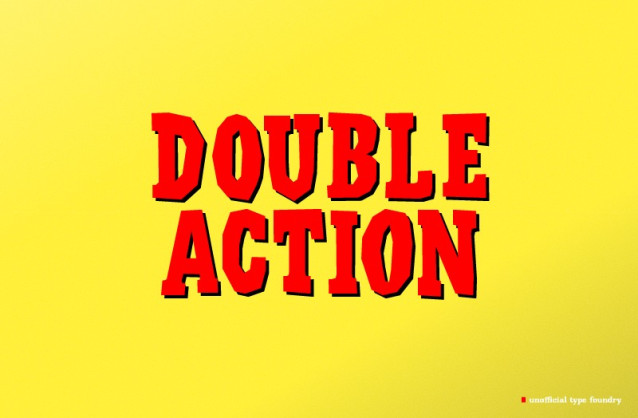
Double Action Font is a simple and modern display font suitable for quotes, logos, headings, titles, and many more. Use it on any of your creative projects, and your designs will become outstanding!
Double Action Font
| Classification: | Display Fonts, Modern Fonts |